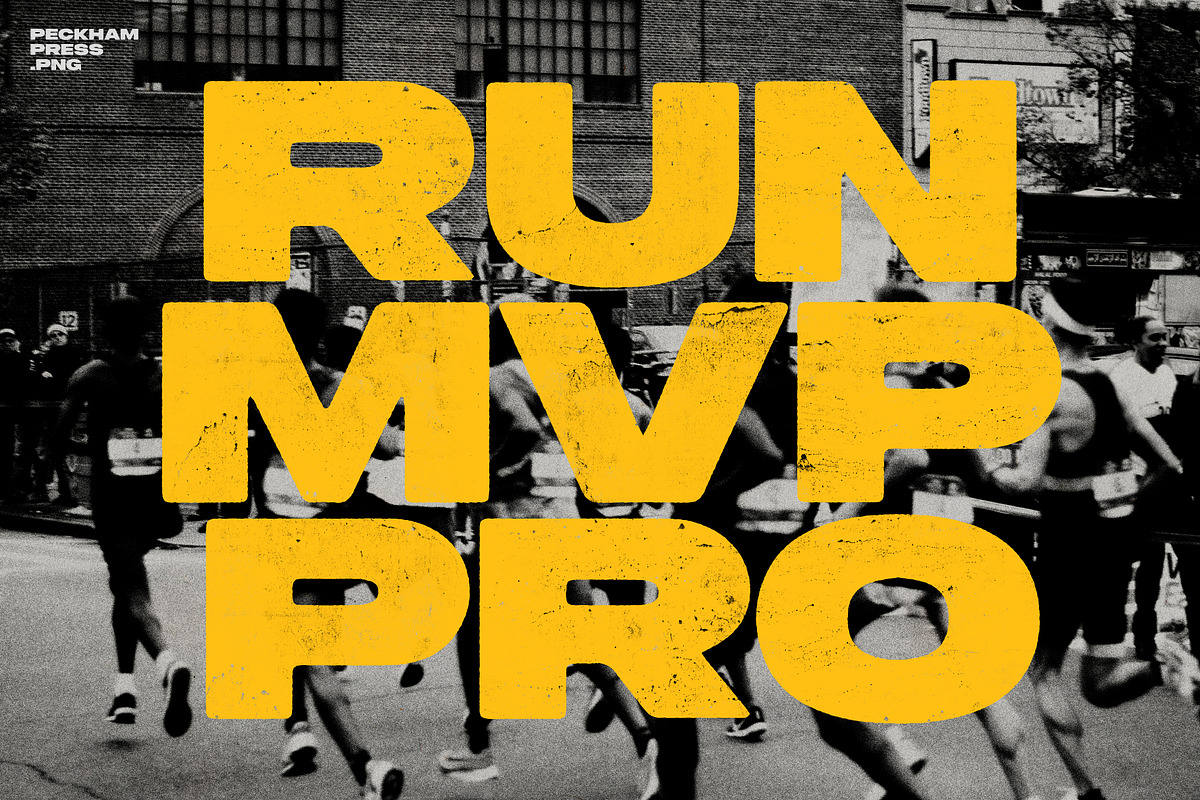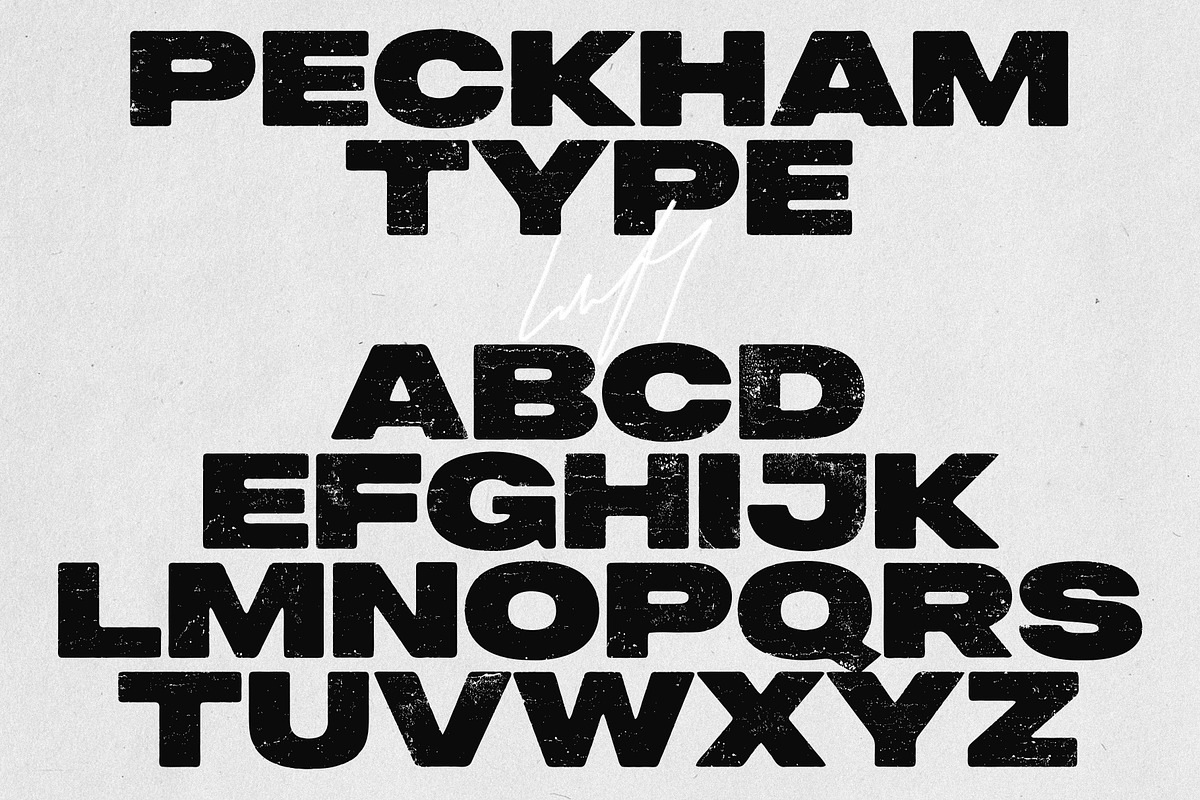
Peckham is a bold hand-pressed typefamily, with a raw aesthetic and solid industrial style. The font brings a spirit of street culture, with its defiant shapes, rough edges and unadulterated imperfections.
It works best in strong design, and situations that require an authentic voice. This font is handmade and includes full original texture with density variants and original nicks and grit, with access options to suit different needs.